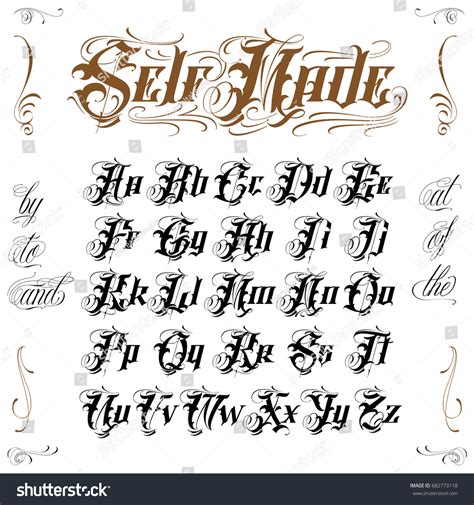
Tattoo Fonts Old English Style Writing, Lettering styles include tribal, traditional sailor, blackletter, fancy, cursive, script, etc. These tattoos are done in various fonts and they are very powerful mediums of expressions.
Star typeface tattoo font is classic with 8 creative styles great for modern designs, but also retro with regular and grunge options to choose from. Old english fonts are also used a lot in tattoo designs because they have a distinguished look and evoke some medieval atmosphere. Looking for old english tattoo fonts? Click to find the best 12 free fonts in the old english tattoo style.
Black jack is a modern vintage font that comes with a stylish tattoo inspired design. Lettering styles include tribal, traditional sailor, blackletter, fancy, cursive, script, etc. Tattoo lettering name design on hands: Star typeface tattoo font is classic with 8 creative styles great for modern designs, but also retro with regular and grunge options to choose from. Gothic font, name.
Other popular fonts used in tattoos include: Some of the most famous trends related to tattoos are the old english tattoo lettering styles and the chinese tattoo lettering styles. Lettering styles include tribal, traditional sailor, blackletter, fancy, cursive, script, etc. Star typeface tattoo font is classic with 8 creative styles great for modern designs, but also retro with regular and.
Create tribal tattoo lettering, old english tattoo lettering, chinese tattoo lettering, gangster. Words of wisdom, quotes, custom text, and more can be included with. Some of the most famous trends related to tattoos are the old english tattoo lettering styles and the chinese tattoo lettering styles. Here’s another single word tattoo that has been done using the handwriting font style..